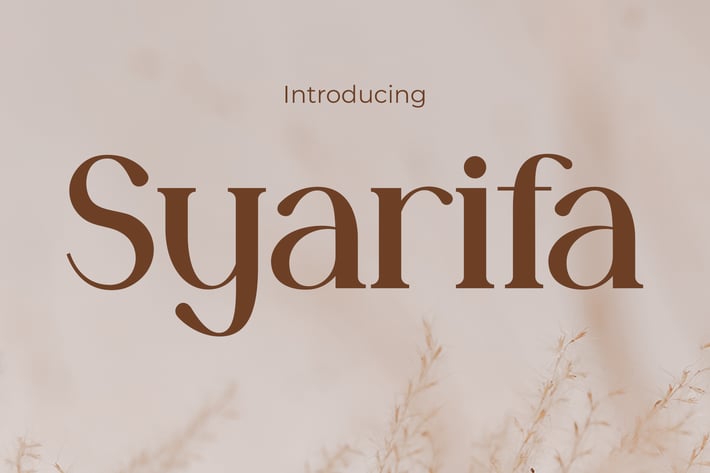
Syarifa Modern Luxury Serif Font
Syarifa
Syarifa is a high-contrast, soft-serif typeface that blends graceful curves with refined elegance—crafted for clean editorial design and expressive branding. With a low x-height and generous spacing, Syarifa delivers a sophisticated and airy tone. The font's subtle flared serifs and gentle terminals give it an approachable yet polished voice—perfect for modern creators who want their designs to feel calm, clear, and captivating.
Whether you're creating a minimalist brand identity, a lifestyle blog, or packaging for a boutique product, Syarifa’s refined proportions make it highly versatile. The overall vibe is delicate, serene, and editorial-friendly, without losing personality.
Syarifa excels in creative contexts where elegance and readability go hand in hand. From fashion magazines and Instagram quote templates to luxury product packaging and clean typographic posters, it helps designers create a serene, editorial look without trying too hard. Its smooth legibility and romantic charm make it a go-to choice for creatives who value harmony and presence in their type. Perfect for branding agencies, influencers, and startup founders looking to inject emotion and clarity into their message.
Key Features :
Elegant but Versatile
- Perfect for both body text and headlines
- Elegant presence with excellent readability
Letterform Charm
- Graceful contrast and softened terminals
- Classic proportions with modern spacing
Made for Creators
- Ideal for editorial layouts, packaging, logos, blogs, and Instagram quotes
- Harmonizes beauty with clarity for high-impact designs